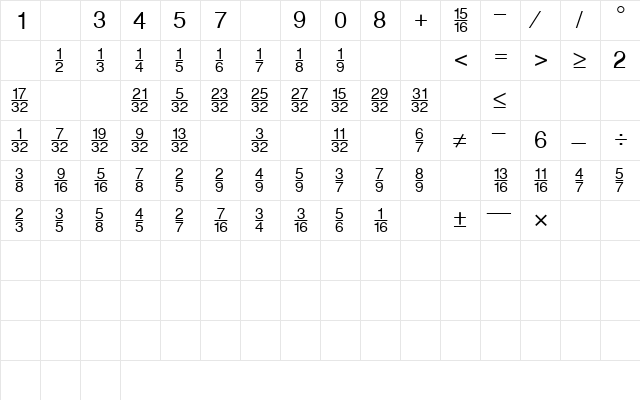
SansFractionsVertical Plain
Design Context for SansFractionsVertical Typeface
SansFractionsVertical is a composed and adaptable typeface that performs quietly and consistently across a wide range of design contexts.